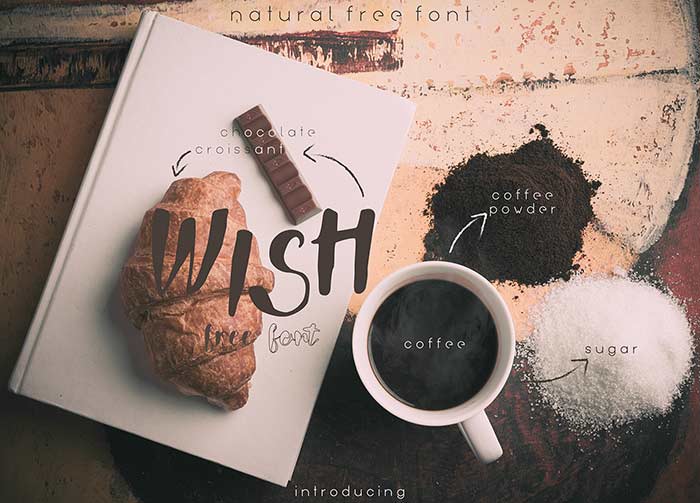
• Wish Free Script Font
• Hand-lettered, natural & simple style
• Ideal for branding, invites, and designs
Bring a touch of elegance and nature-inspired charm to your designs with the –
Wish Free Font
A beautifully crafted hand-lettering typeface inspired by the charm of nature.
The Wish Font combines organic flow with professional precision, giving your designs a natural, warm, & authentic touch.
Perfect for branding, invitations, packaging, social media posts, & greeting cards, this free script font effortlessly enhances your creative projects.
This Wish Free Font is Perfect For:
• Branding and logo design
• Wedding invitations and greeting cards
• Product packaging and label design
• Social media posts and digital artwork
• Posters, quotes, and stationery
• Type: Script / Hand-lettered Font
• Design Style: Natural, Simple, Elegant, and Organic
A Sneak Peek Into Wish Free Font:
Wish free font for a book and coffee picture detailing
Natural word written with wish free font
Font usage on labels
wish free font as a mug design
moutains with adventure written with wish  free font
Bag with with wish free font mockup
Orange and white frame
font used on a wall painting
font used on  a wall painting
font for beach vibe creation
Font letters and characters and numbers preview